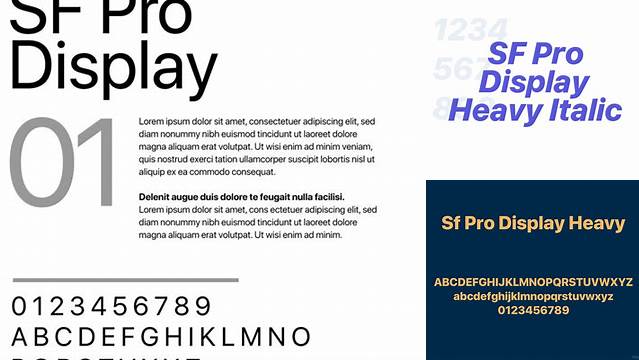
Introduction to SF Pro Display Heavy Font
Hey guys! Are you on the hunt for a sleek, modern font that can add a touch of sophistication to your design projects? Look no further! Let’s dive into the world of SF Pro Display Heavy, a typeface that has been making waves in the design community. This font, part of the San Francisco (SF) family designed by Apple, is renowned for its clarity, legibility, and contemporary aesthetic. Whether you're a seasoned designer or just starting, understanding and utilizing SF Pro Display Heavy can significantly elevate your work. Its clean lines and robust structure make it a versatile choice for a wide range of applications, from user interfaces to branding materials. In this article, we'll explore everything you need to know about SF Pro Display Heavy, including its characteristics, uses, and how to download it for free. We'll also touch on licensing considerations and provide some tips for effectively incorporating it into your projects. So, buckle up and get ready to enhance your typographic toolkit!
SF Pro Display Heavy is more than just a font; it’s a statement. Its strong, bold presence commands attention, making it perfect for headlines, titles, and other prominent text elements. The font's geometric structure and optimized kerning ensure that it remains legible even at smaller sizes, a crucial factor for user interface design. Apple's meticulous attention to detail is evident in every glyph, resulting in a typeface that exudes professionalism and polish. One of the key reasons for its popularity is its adaptability. It works seamlessly across various platforms and devices, maintaining a consistent look and feel. This is particularly important in today's multi-device world, where designs need to be responsive and visually appealing on everything from desktops to smartphones. In the following sections, we'll delve deeper into the specific features of SF Pro Display Heavy, its various use cases, and how you can get your hands on it without spending a dime. We'll also address some common questions and concerns, ensuring you have all the information you need to make the most of this fantastic font. So, let's get started and unlock the potential of SF Pro Display Heavy in your design arsenal!
What Makes SF Pro Display Heavy Special?
So, what exactly makes SF Pro Display Heavy so special? Let's break it down. First off, the "Heavy" weight gives it a bold and impactful presence, perfect for grabbing attention. Think of it as the assertive voice in your design, ideal for headlines, titles, and call-to-action buttons. But it's not just about being bold; it's about being legibly bold. The font's design ensures that even at its heaviest weight, the characters remain distinct and easy to read. This is crucial for maintaining clarity and avoiding visual clutter, especially in user interfaces and digital applications.
Another key feature is its geometric construction. The clean, precise lines and balanced proportions give it a contemporary and professional feel. This makes it a great choice for brands that want to project an image of modernity and sophistication. The consistent stroke widths and open counters (the spaces inside the letters) contribute to its overall legibility and visual appeal. Moreover, SF Pro Display Heavy is part of a larger font family, which includes a range of weights and styles. This gives you a lot of flexibility in your designs. You can use the Heavy weight for headings and titles, and then switch to a lighter weight for body text, creating a harmonious and visually appealing hierarchy. This versatility is one of the main reasons why it's so popular among designers. The font also boasts excellent kerning, which is the spacing between individual letters. Good kerning ensures that the letters fit together nicely, creating a smooth and even flow of text. This attention to detail is what sets SF Pro Display Heavy apart from many other fonts. It's not just about the shape of the letters; it's about how they work together to create a cohesive and readable whole. In short, SF Pro Display Heavy is special because it combines boldness, legibility, versatility, and meticulous design. It's a font that's built to perform, whether you're designing a website, an app, or a marketing campaign. And the best part? You can often find it for free, which we'll discuss in more detail later in this article.
Common Uses of SF Pro Display Heavy
Alright, let's talk about where you can actually use SF Pro Display Heavy. This font is incredibly versatile, making it a fantastic choice for a wide range of projects. One of its most common applications is in user interface (UI) design. Its clean and legible characters make it perfect for menus, buttons, and other interface elements. The Heavy weight is particularly useful for highlighting important actions or information, guiding users through the interface effectively. Think about the interfaces you use every day – many of them likely incorporate variations of the SF Pro family, including the Heavy weight, for its clarity and modern aesthetic.
Beyond UI design, SF Pro Display Heavy shines in branding and marketing materials. Its bold presence makes it ideal for logos, headlines, and advertising campaigns. Imagine a striking headline in SF Pro Display Heavy grabbing the attention of potential customers – that's the kind of impact this font can have. Its contemporary look aligns well with brands that want to project a modern and sophisticated image. The font is also a solid choice for print design. Whether you're creating brochures, posters, or business cards, SF Pro Display Heavy can help you make a strong visual statement. Its legibility ensures that your message is clear and easy to read, even in smaller sizes. In the digital realm, this font excels in web design. Its clean lines and optimized kerning make it a pleasure to read on screens of all sizes. It works well for both headings and body text, although the Heavy weight is typically reserved for headings and titles to maintain readability. Another area where SF Pro Display Heavy is frequently used is in app design. Its clarity and legibility are crucial for creating user-friendly and visually appealing apps. The font's consistency across different devices and platforms ensures a seamless user experience. To sum it up, SF Pro Display Heavy is a go-to font for UI design, branding, marketing, print, web, and app design. Its versatility and modern aesthetic make it a valuable asset in any designer's toolkit. Now that we've covered its uses, let's explore how you can get your hands on it for free.